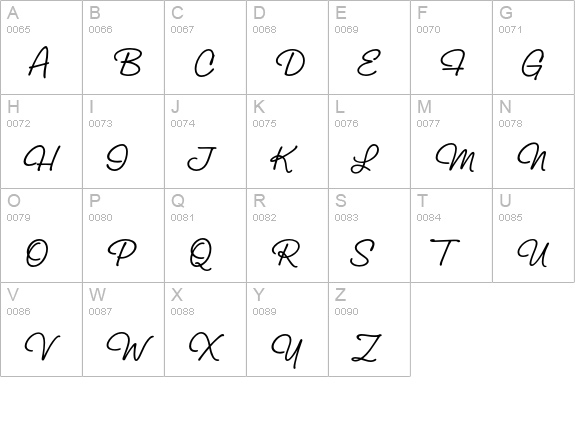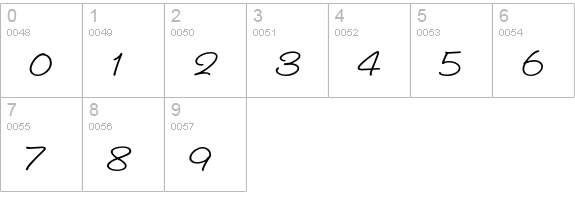
StudioScriptEF Font Details
StudioScriptEF is a beautifully crafted handwritten font that exudes elegance and sophistication. With its flowing strokes and graceful curves, this font is perfect for adding a touch of charm to any design project. Whether you're creating invitations, logos, or branding materials, StudioScriptEF will bring a sense of style and refinement to your work. The best part? StudioScriptEF is completely free to download at FontsMarket.com. This means you can easily access this stunning font and use it in your projects without any cost. Don't miss out on the opportunity to elevate your designs with StudioScriptEF's timeless appeal and versatility. Download it today and bring a touch of class to your creations.